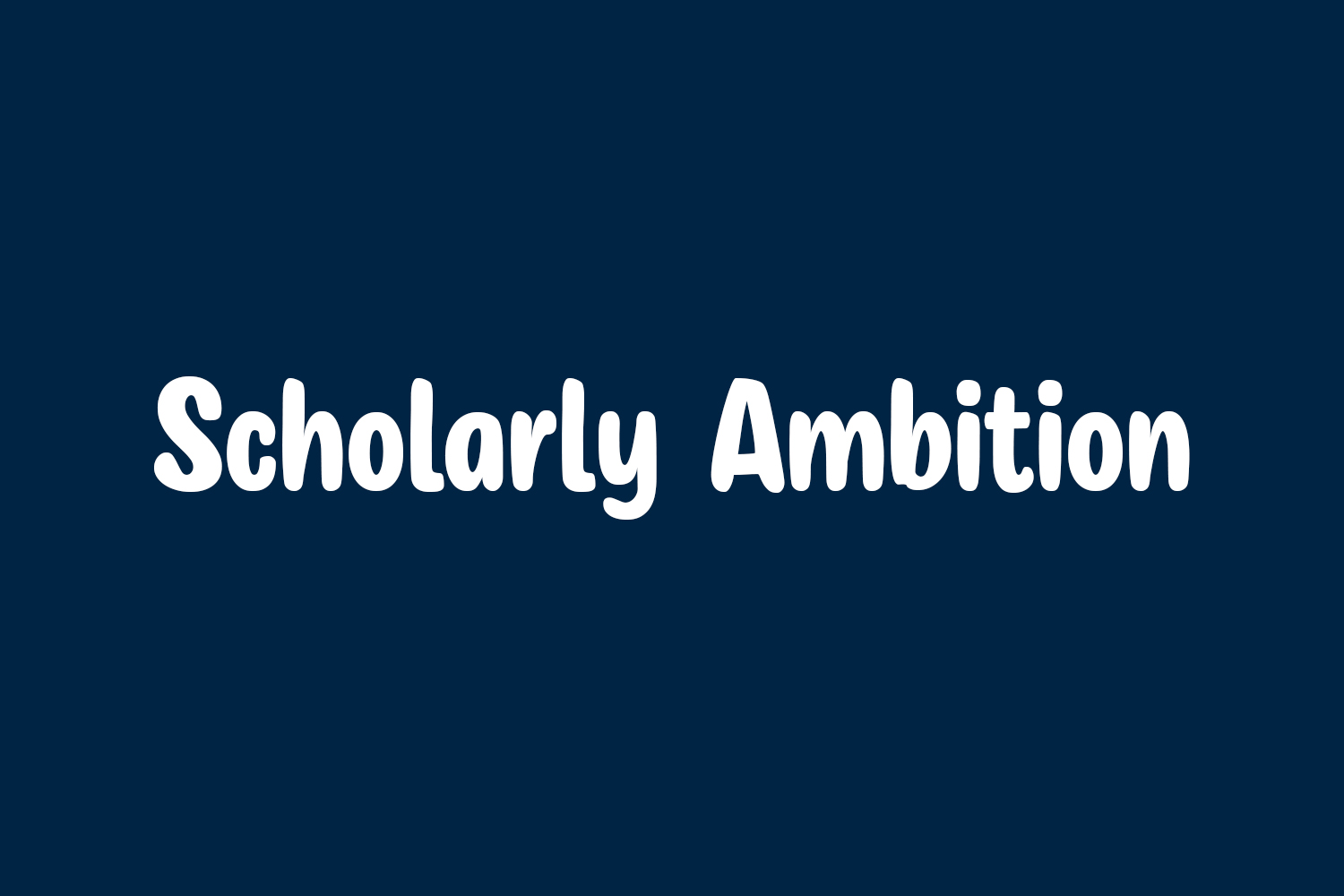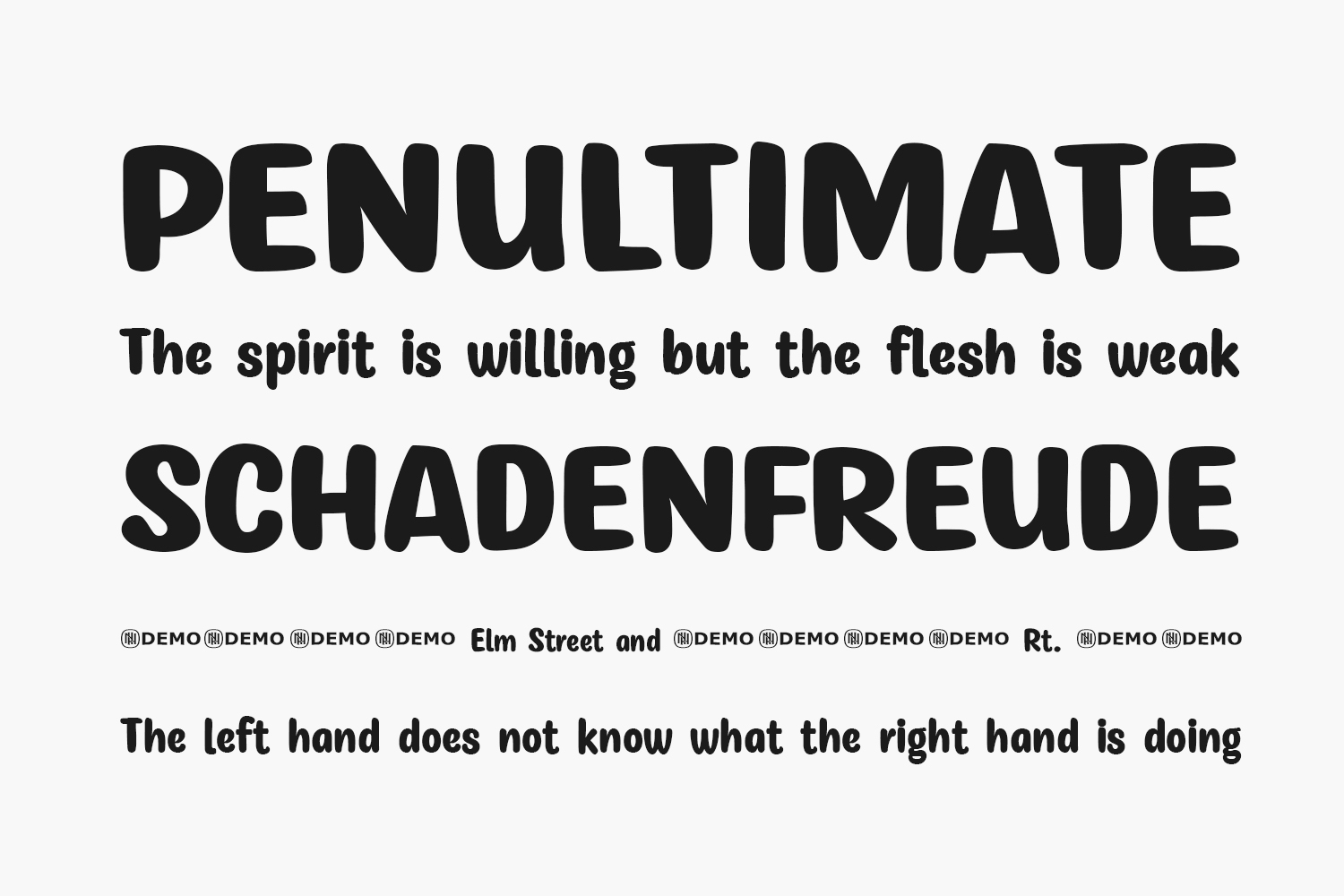
Inject some playfulness into your next design or crafting project with Scholarly Ambition Free Font, a charming and fun display font. Its compatibility with cutting machines like Cricut and Silhouette makes it a versatile choice for all your creative endeavors.
Designed by Niskala Huruf